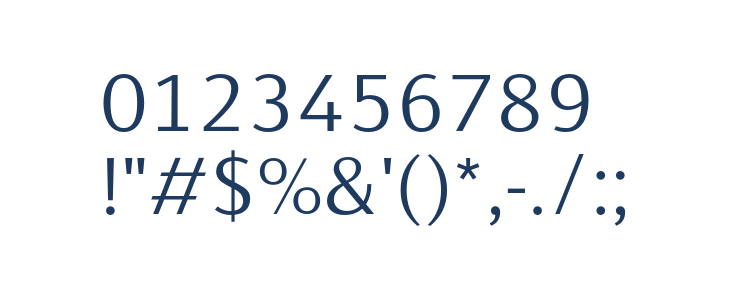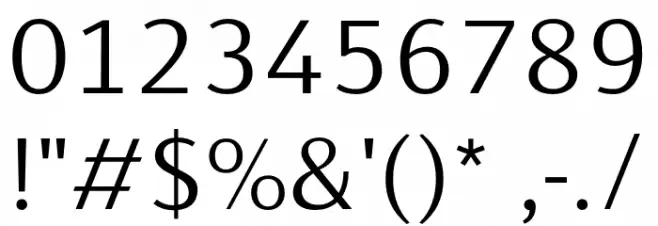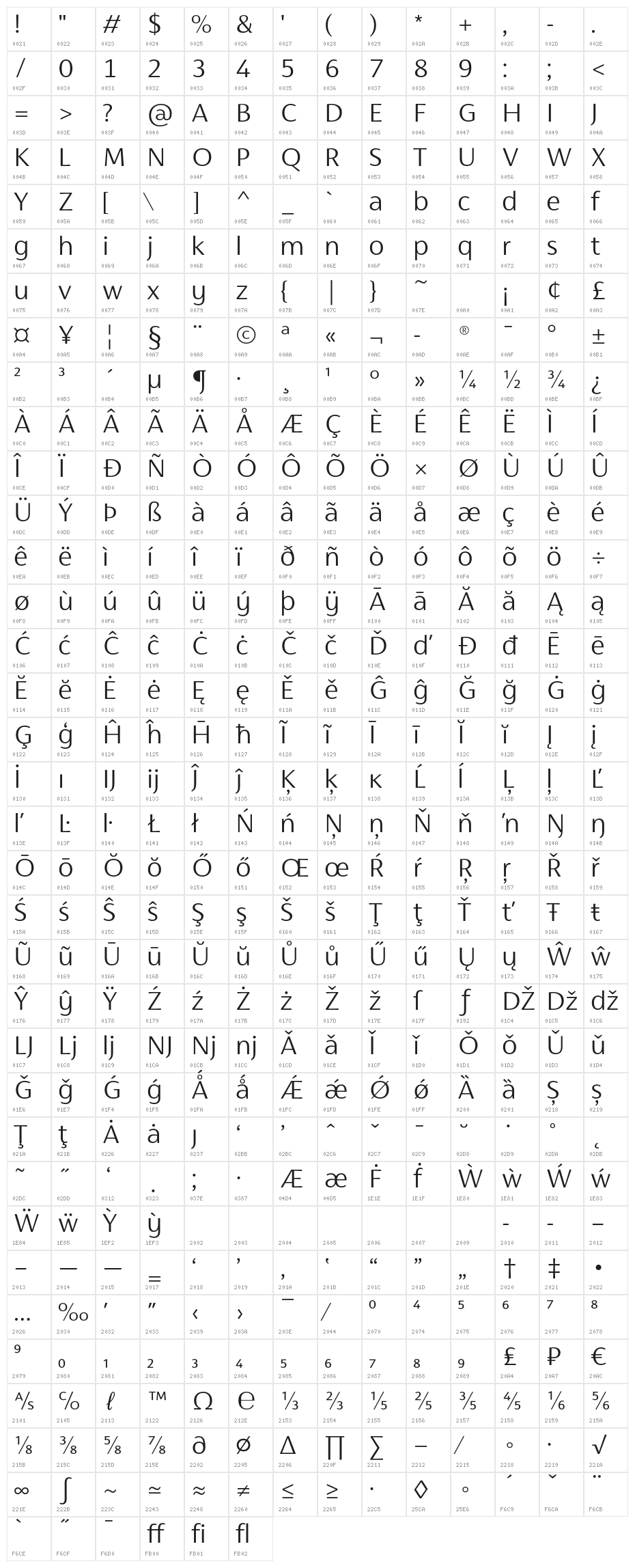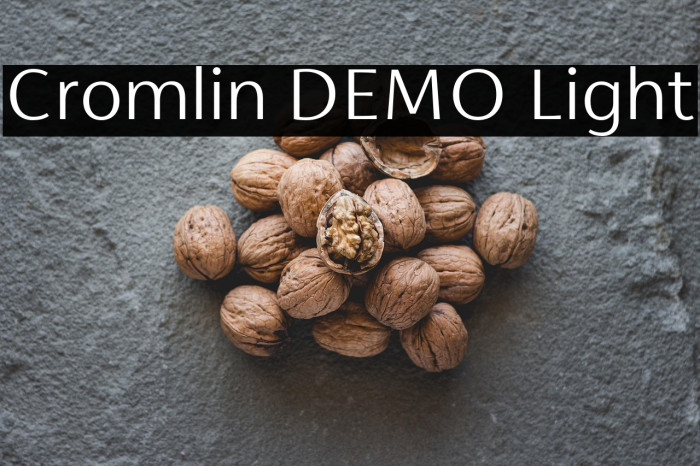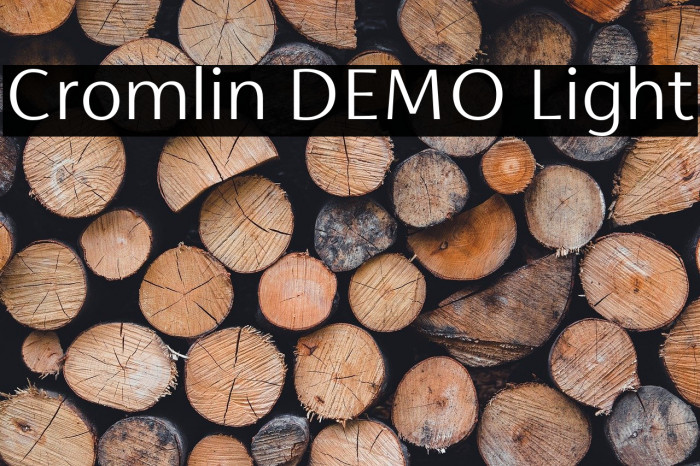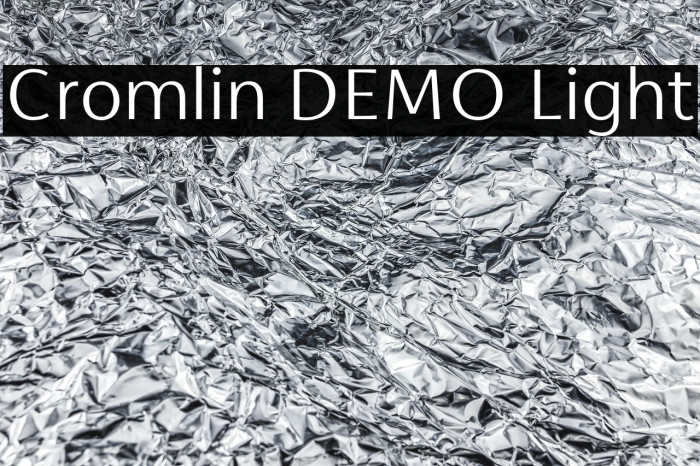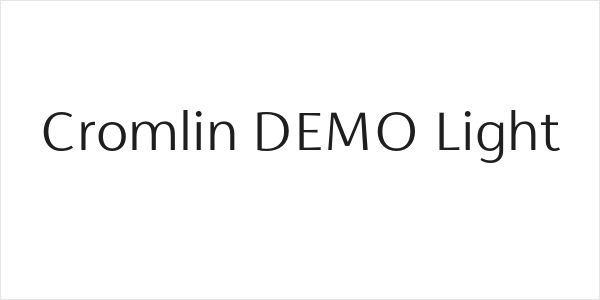
Cromlin DEMO Light Font
Cromlin DEMO Light Description
This font features a clean and modern sans-serif design, characterized by its simplicity and clarity. The letterforms are well-proportioned with a consistent stroke width, providing a harmonious and balanced appearance. The uppercase letters are slightly taller than the lowercase, offering a distinct hierarchy. The numerals are clear and legible, making them suitable for various applications. Special characters are included, maintaining the same minimalist style. Overall, this font exudes a contemporary feel, making it versatile for both digital and print media.
| Proposed Projects | Ideal for branding, web design, editorial layouts, and corporate materials. |